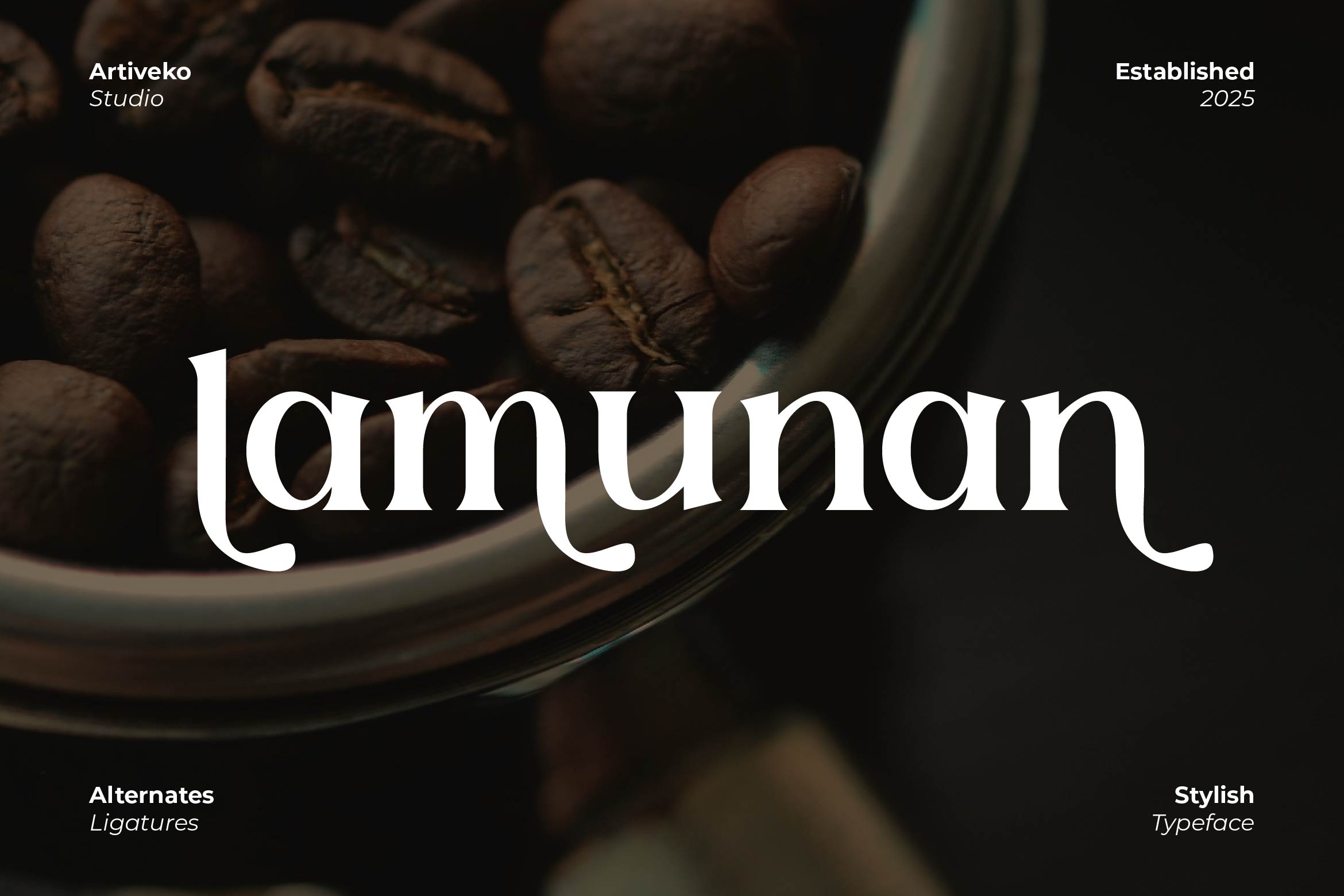
- Lamunan Elegant Serif Font
Lamunan is a high-end serif font designed to capture elegance, class, and modern refinement. With its high-contrast strokes, sharp serifs, and graceful proportions, Lamunan is perfect for luxury branding, fashion magazines, wedding invitations, premium packaging, editorial layouts, and statement logo designs.
Its refined structure offers excellent readability while adding a touch of exclusivity, making it ideal for projects that need a premium, upscale visual presence. The design merges classic serif beauty with a contemporary aesthetic, giving your typography a distinctive and polished look.
The font includes uppercase and lowercase letters, numerals, punctuation, multilingual support, ligatures, and stylistic alternates for endless creative possibilities.
Transform your designs with Lamunan — the premium serif font that defines elegance, prestige, and modern sophistication.